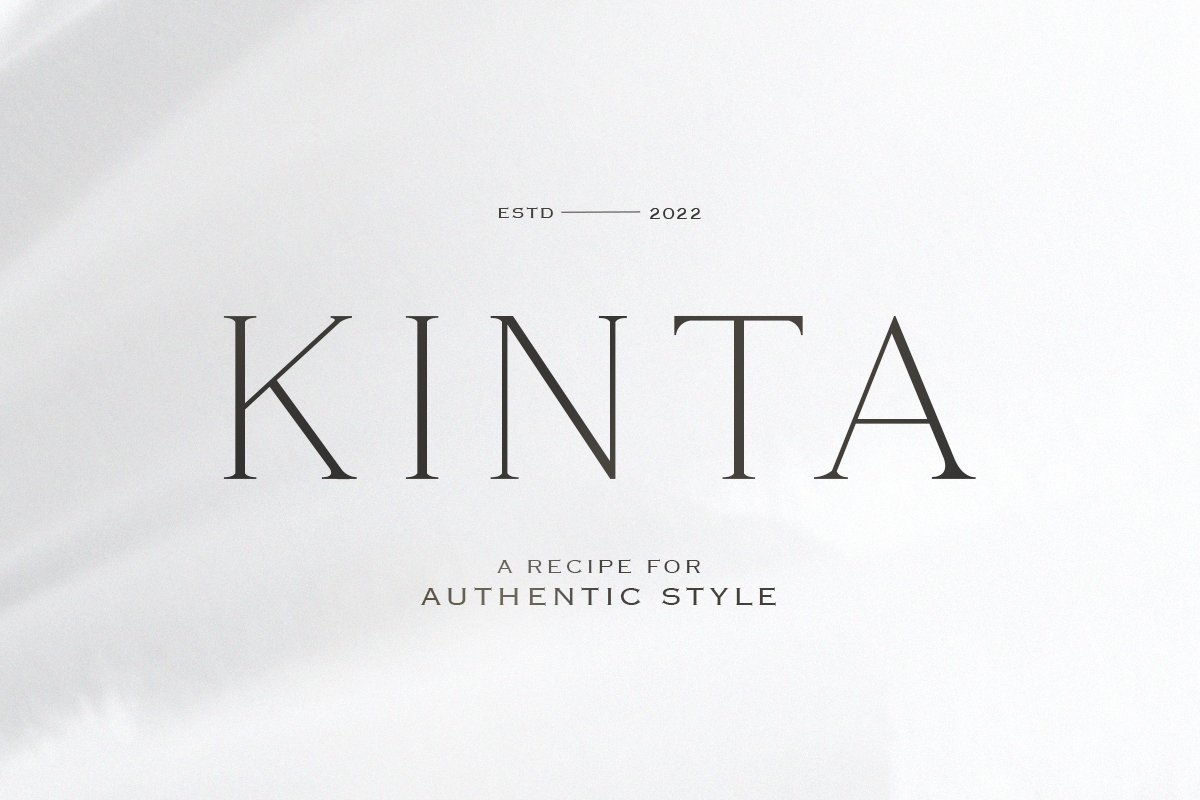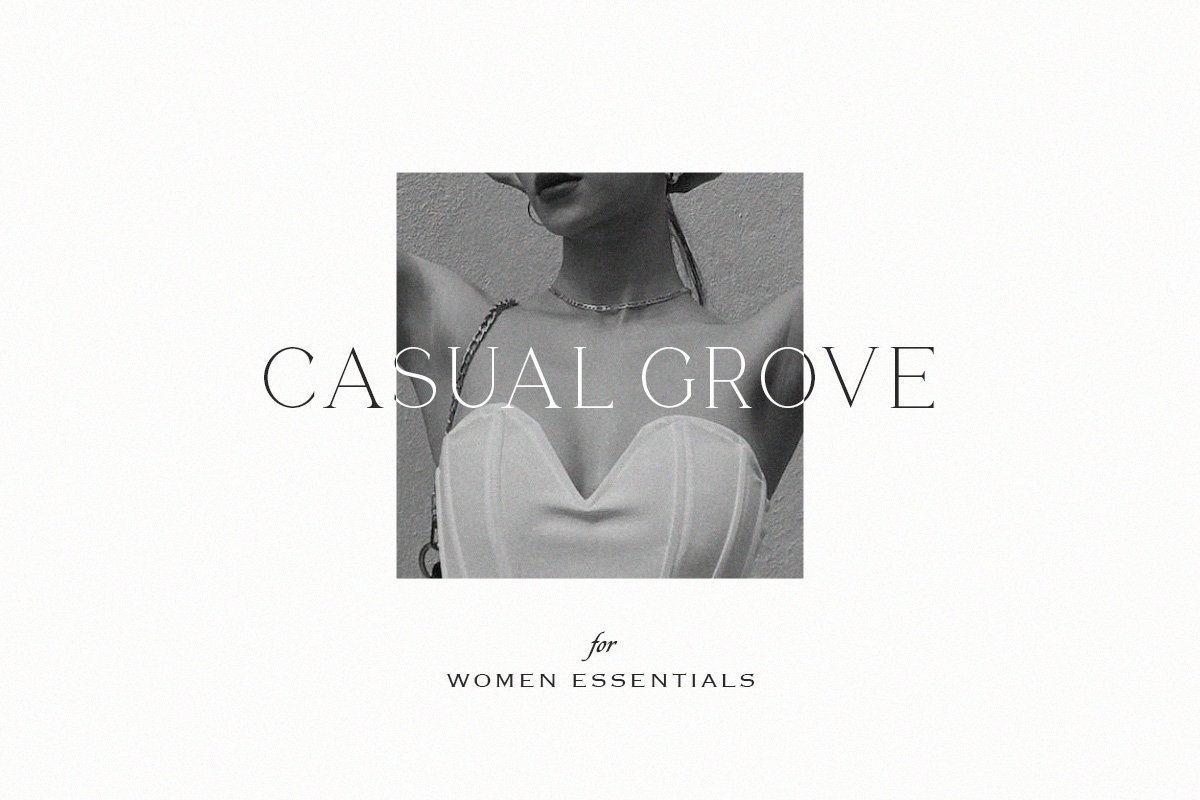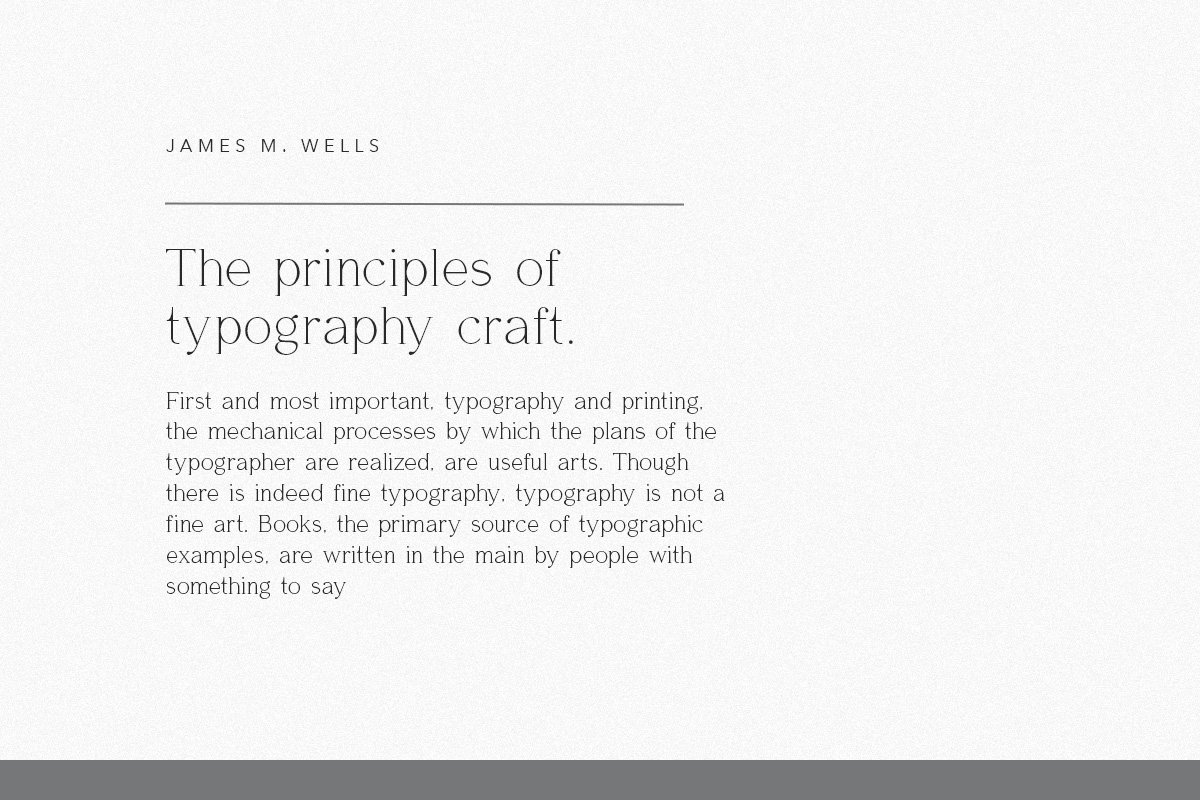
About the Kinta Authentic Serif Font
Kinta is a serif with an elegant authentic style, This font might feature clean, minimal lines and a limited number of flourishes, while still maintaining the classic look and feel of a serif font, This style of font could be well-suited for products that want to convey a sense of sophistication and authenticity, while still maintaining a modern and minimalist aesthetic